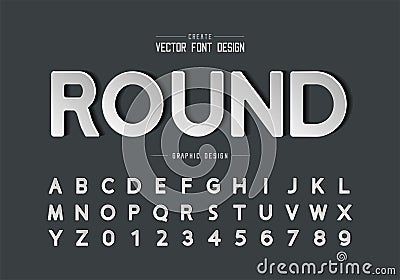
Paper Font And Round Alphabet Vector, Design Typeface And Number, Graphic Text On Background
Paper font and round alphabet vector, Design typeface and number, Graphic text on background #162952471
Paper font and round alphabet vector, Design typeface and number, Graphic text background